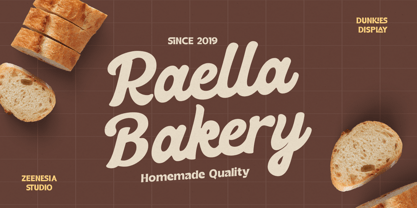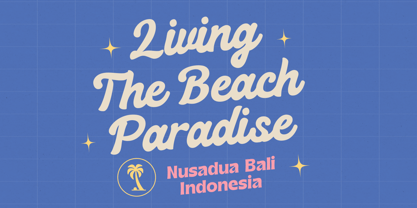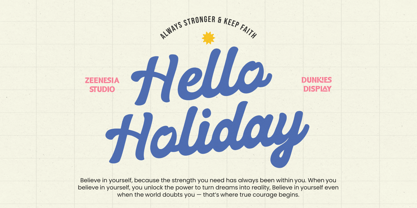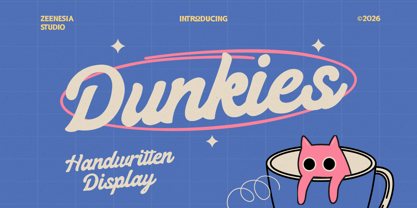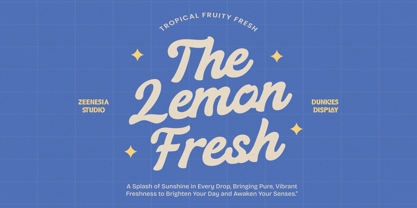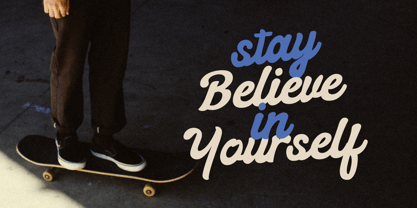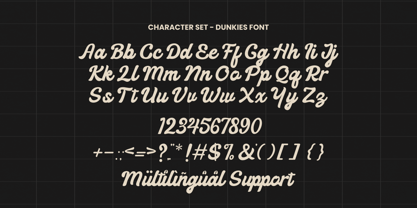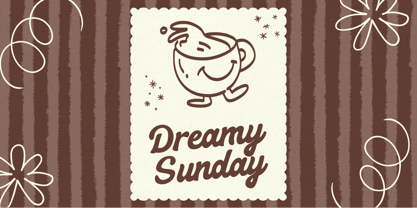
Dunkies
by Zeenesia Studio
The Dunkies Font Family was designed by Doni Purwoko and published by Zeenesia Studio. Dunkies contains 1 styles. More about this family
Dunkies is a charming handwritten display font that brings warmth, personality, and a touch of retro sweetness to your designs. With its smooth curves, bouncy letterforms, and natural flow, this typeface captures the feel of casual handwriting while maintaining a bold and eye-catching presence. Perfect for branding, packaging, posters, café menus, merchandise, and social media graphics, Dunkies adds a cozy yet playful character to any creative project. Let your designs feel more personal, expressive, and delightfully memorable with Dunkies.
Designers: Doni Purwoko
Foundry: Zeenesia Studio